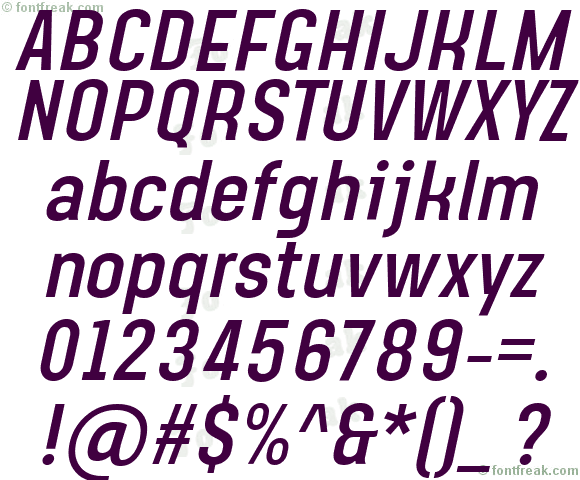
Steagisler Italic
Steagisler
The Steagisler Italic font by Situjuh Nazara is a striking example of a modern display typeface, characterized by its elegant italic style that adds a dynamic flair to any design project. This font features a medium stroke weight, providing a balanced contrast that enhances readability while maintaining an artistic edge. The spacing is thoughtfully designed to ensure clarity, making it suitable for both headings and body text. Additionally, the font incorporates subtle decorative elements that give it a unique personality without overwhelming the overall design.
Steagisler Italic is ideal for a variety of specific use cases. It works beautifully for wedding invitations, where its sophisticated style can convey romance and elegance. The font is also well-suited for movie posters, lending a contemporary feel that captures attention. Restaurant menus can benefit from its distinctive look, helping to elevate the dining experience with a touch of class. Moreover, it serves as an appealing choice for branding projects, allowing small business owners to create memorable logos that stand out in a crowded marketplace.
The target audience for Steagisler Italic includes graphic designers, content creators, and small business owners who seek a font that combines elegance with versatility. Its free availability as freeware makes it accessible for both personal and commercial projects, appealing to those who appreciate quality typography without the associated costs.
What sets the Steagisler Italic font apart is its perfect blend of modern aesthetics and usability. Its distinct visual characteristics and thoughtful design make it a valuable addition to any designer's toolkit. For those looking to enhance their projects, the Steagisler Italic font free download offers an opportunity to elevate their creative work with a unique and stylish typeface.